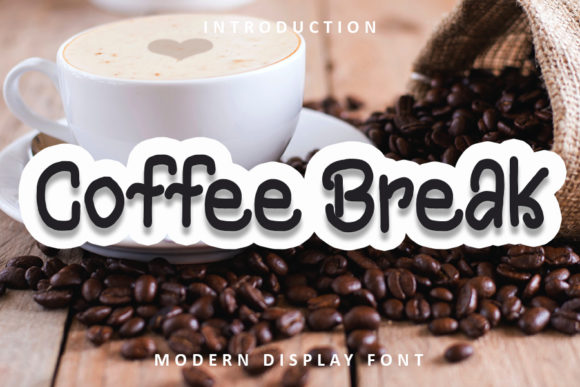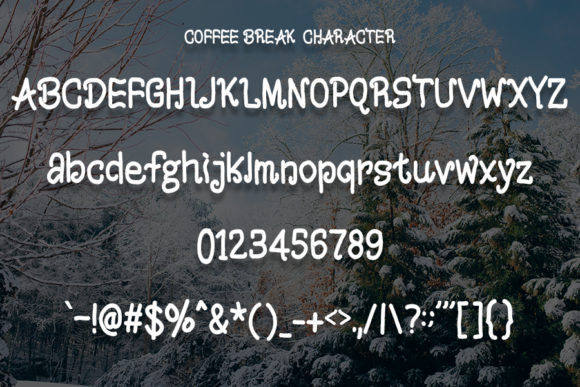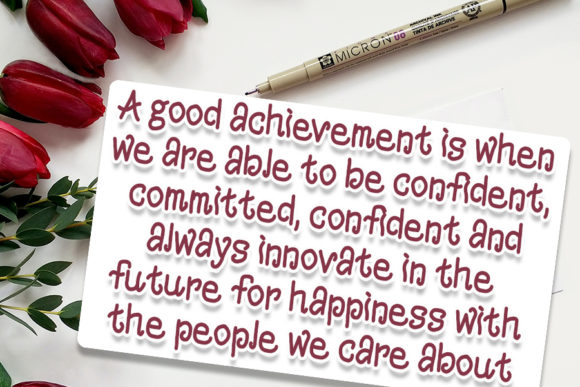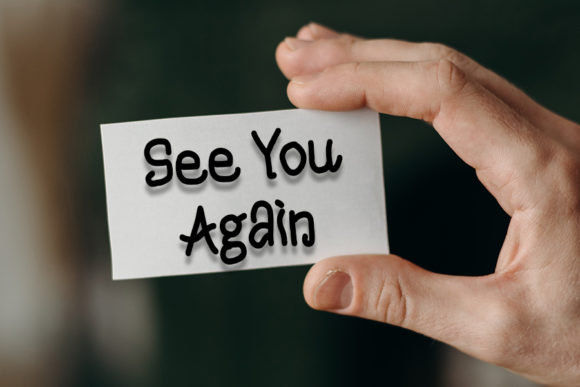
About Coffee Break Font
Coffee Break sounds like a delightful font choice! An authentic handwritten font like Coffee Break can add a personal and unique touch to your designs. The touch of quirkiness it offers can bring a playful and casual vibe to your projects.
Using Coffee Break for crafting, digital designing, presentations, or greeting card making is a fantastic idea. Its handwritten nature creates a warm and friendly feel, making it suitable for a wide range of applications.
Crafting projects can benefit from the organic and imperfect qualities of Coffee Break. Whether you’re creating handmade cards, scrapbook pages, or personalized gifts, this font can add a charming and personal element to your creations. It can capture the essence of a handwritten note, making your crafts feel more heartfelt and authentic.
For digital designing, Coffee Break can inject personality into your designs. It can be used for various digital projects such as social media graphics, blog headers, digital scrapbooking, or creating personalized digital content. Its quirkiness can help your designs stand out and create a memorable impression.
Presentations can also benefit from the use of Coffee Break. By incorporating this font, you can add a touch of informality and approachability to your slides. It can be particularly effective for presentations that have a creative or informal theme, helping to engage your audience and make your content feel more relatable.
When it comes to greeting card making, Coffee Break can truly shine. Its handwritten style can evoke a sense of warmth and authenticity, making your cards feel more personal and heartfelt. Whether you’re designing birthday cards, thank-you notes, or invitations, this font can add a special touch that resonates with the recipient.
As with any font, it’s important to consider readability and legibility, especially for longer bodies of text. While Coffee Break is perfect for headlines, titles, or short phrases, it’s advisable to pair it with more legible fonts for longer paragraphs or smaller text elements to ensure optimal readability.
In summary, Coffee Break is an authentic handwritten font that brings just the right amount of quirkiness to your designs. It can be used in various creative projects such as crafting, digital designing, presentations, and greeting card making. Embrace its personal and unique qualities to add a touch of warmth and playfulness to your creations. Enjoy the process of incorporating Coffee Break into your designs and let your creativity shine!